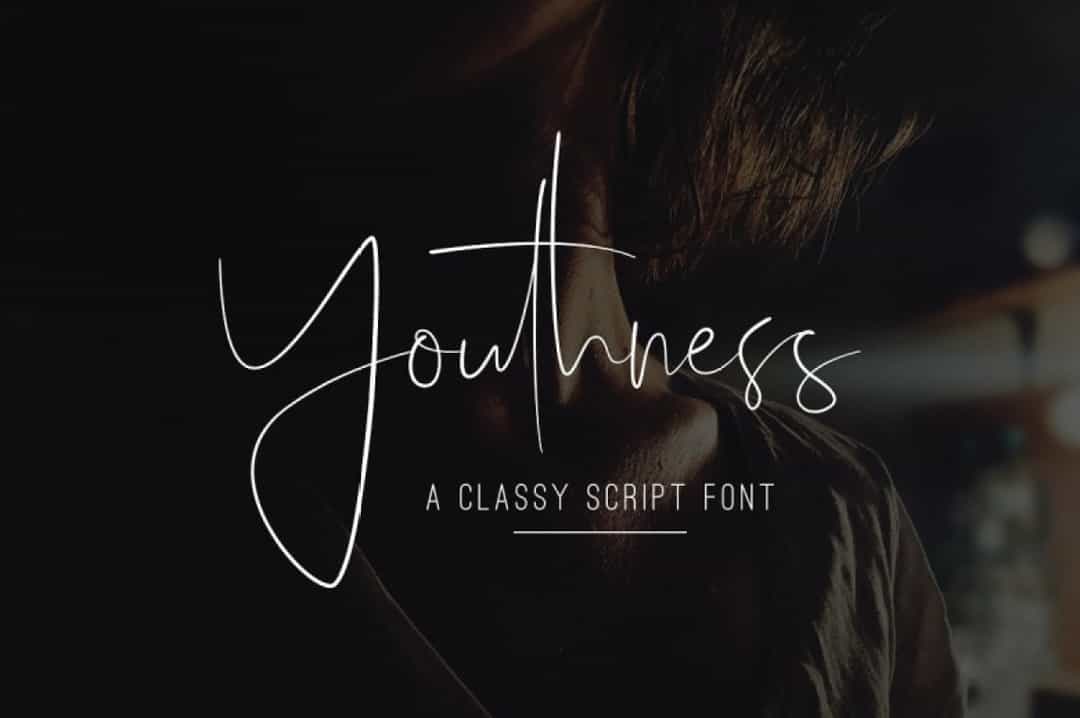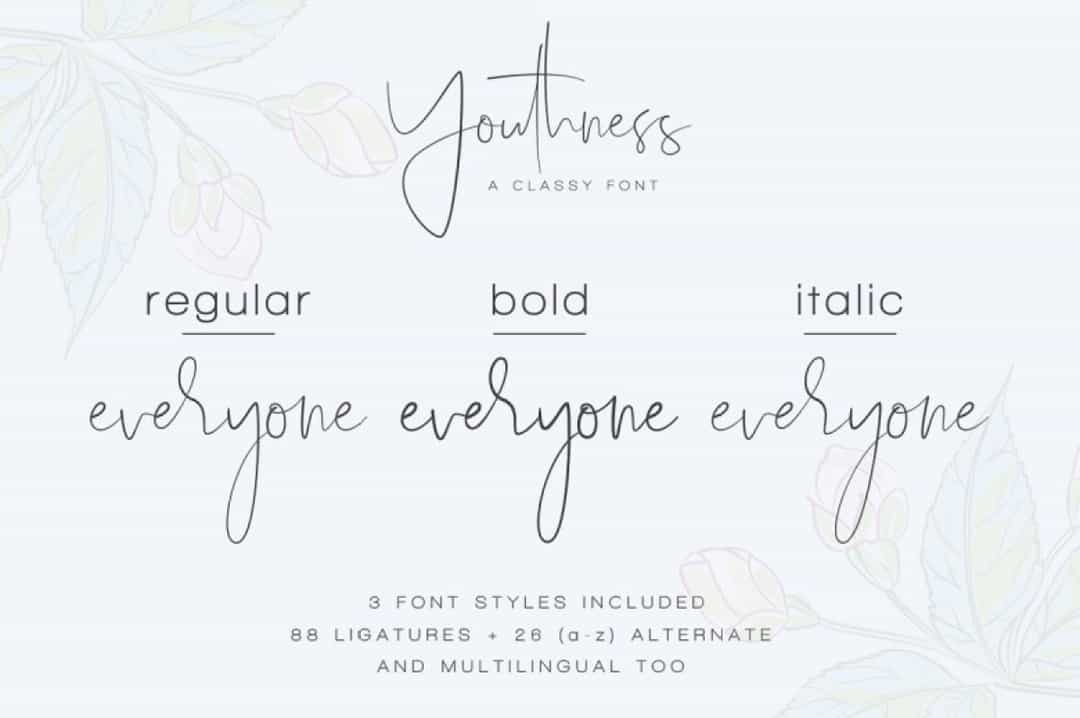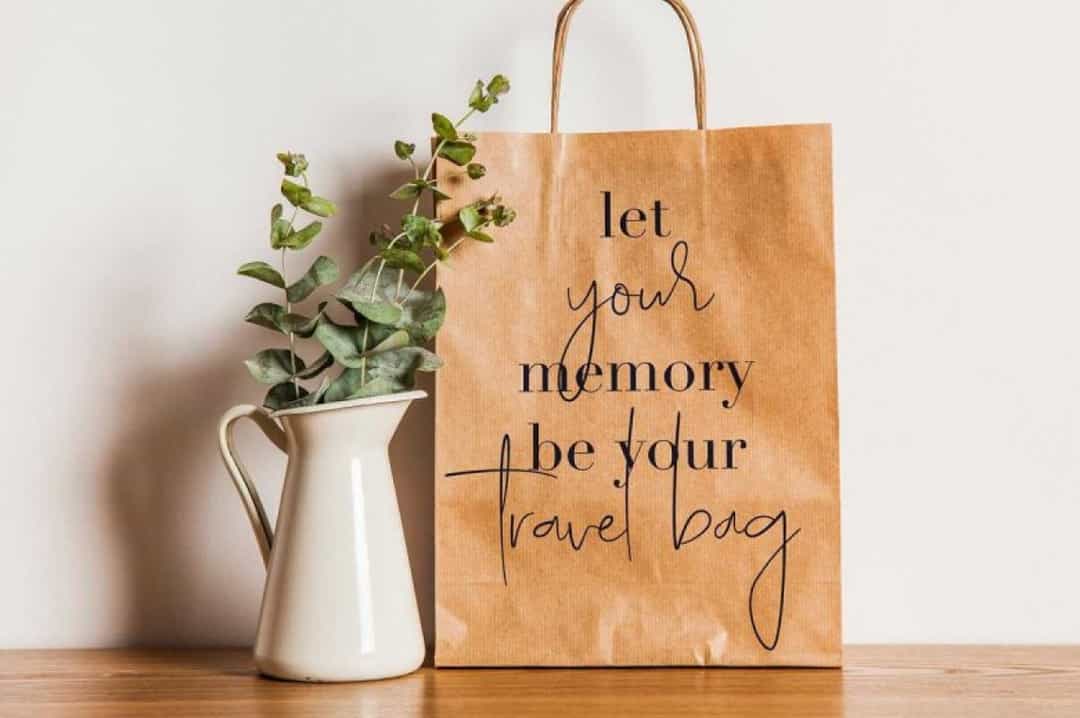
Thank you for your time to take a look at Youthness font by Dharmas, its a contemporary script font created in modern feminine font. Each letter was drawn to the smallest detail so your text looks as good as possible, that is why this type can be used for watermarks in photographs, headers for blogs or websites, posters, quotes, posters- wedding, branding, logos, clothing, fashion, fashion invitations, stationery, stationery and many other things.